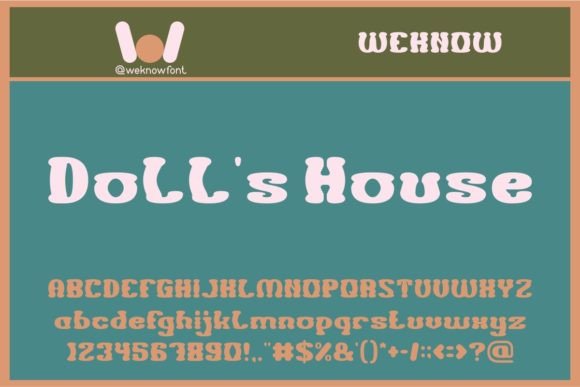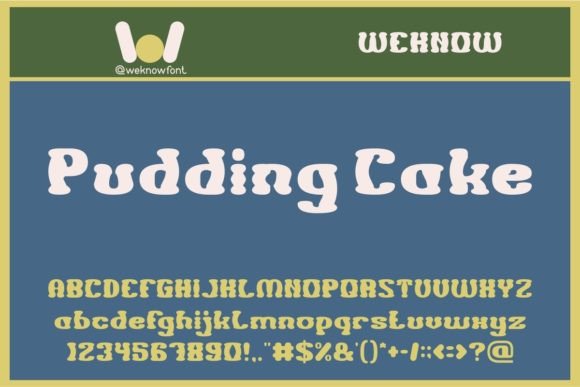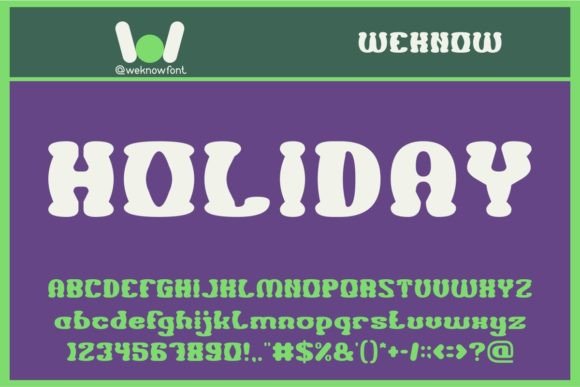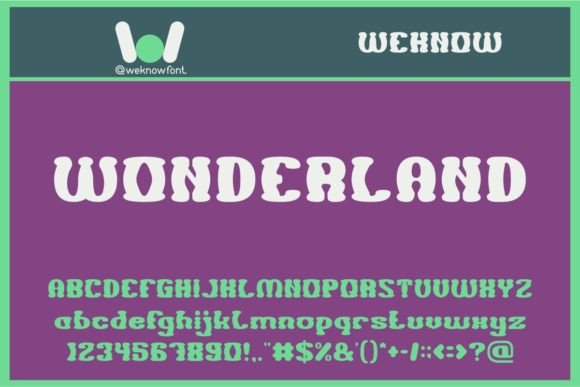
Introduction to Happy Clown Font
Have you ever found yourself scrolling through your favorite design inspiration boards, and suddenly, a bright and cheerful font catches your eye? For designers, that ‘aha’ moment is what it’s all about – the spark of creativity that sets the wheels turning and gets the imagination racing. The Happy Clown Font is one such treasure trove of design inspiration, waiting to be unleashed on your next creative project.
With its high-quality, fancy display design, this free download font is a versatile design resource that can elevate any project from a logo to a logotype, headline, or corporate identity. Whether you’re working on a poster, music, movie, or game, the Happy Clown Font is sure to bring a smile to your face and add a touch of whimsy to your design.
Key Features of Happy Clown Font
- High-quality design with a playful and vibrant aesthetic, perfect for creative projects and design resources.
- Comes with a transparent background, allowing for easy integration into various design elements and compositions.
- Features a unique and eye-catching design, with bold lines and bright colors that are sure to add a touch of whimsy to any project.
- Perfect for use in graphic design, digital art, and other creative pursuits, making it a valuable design resource for artists and designers.
Honest Review: Happy Clown Font
I recently stumbled upon the Happy Clown Font, and I must say it’s been a fun addition to my design resource collection. ✨ The font’s high quality and unique design make it perfect for creative projects that require a playful touch.
- Unique and playful design that’s perfect for creative projects
- High-quality font that’s suitable for both digital and print use
- Only comes in a single font style, which may limit its versatility
- May not be suitable for formal or professional projects
Overall, I’m impressed with the Happy Clown Font and would definitely recommend it to designers looking for a fun and creative design resource. Just be aware of its limitations and use it accordingly.
The Happy Clown Font is perfect for a variety of creative projects, including children’s party invitations, marketing materials, and social media graphics. Its playful and whimsical feel makes it ideal for designs that need to appeal to a younger audience.